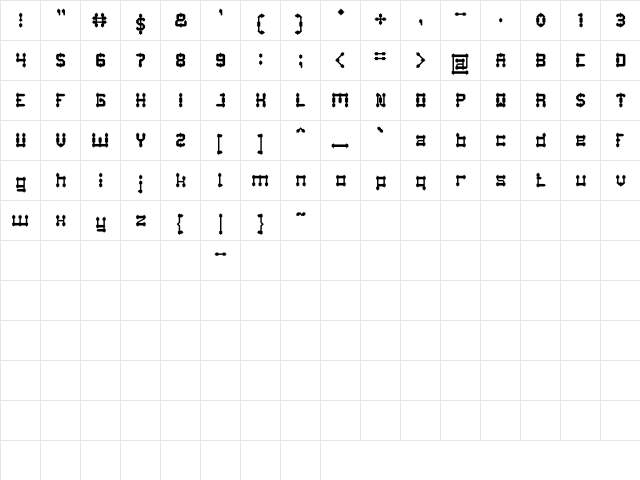
Drako Heart Regular Font Preview
Drako Heart Regular
Drako Heart Regular Font Details
Design Context for Drako Heart Typeface
Drako Heart is a composed and adaptable typeface that performs quietly and consistently across a wide range of design contexts.